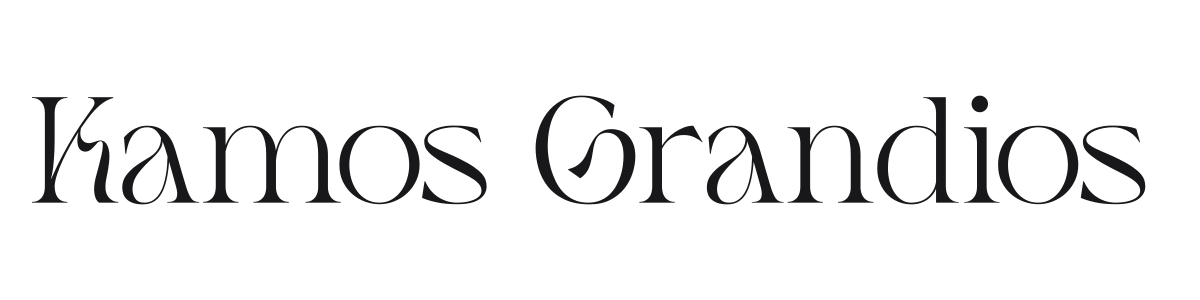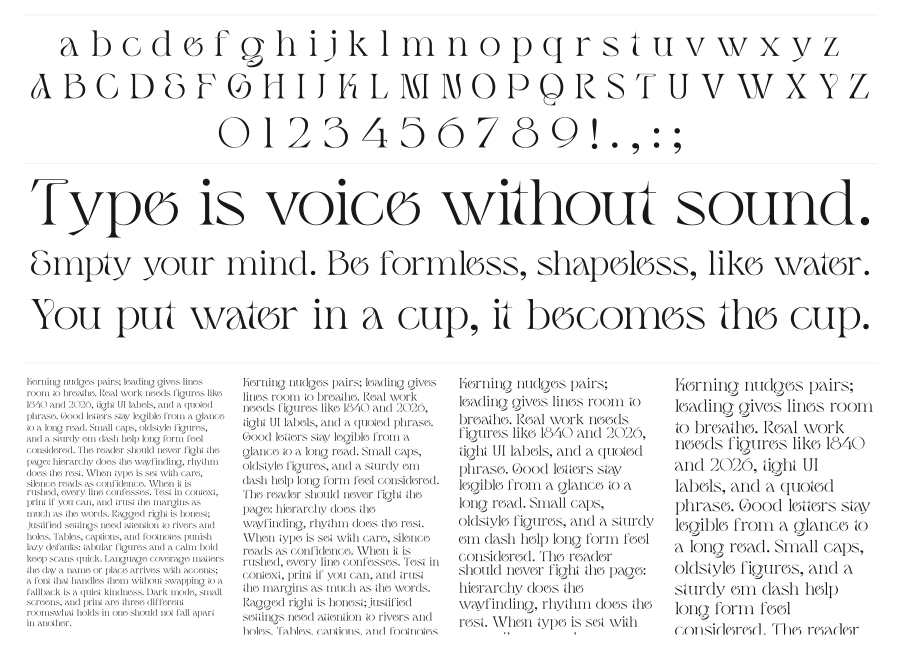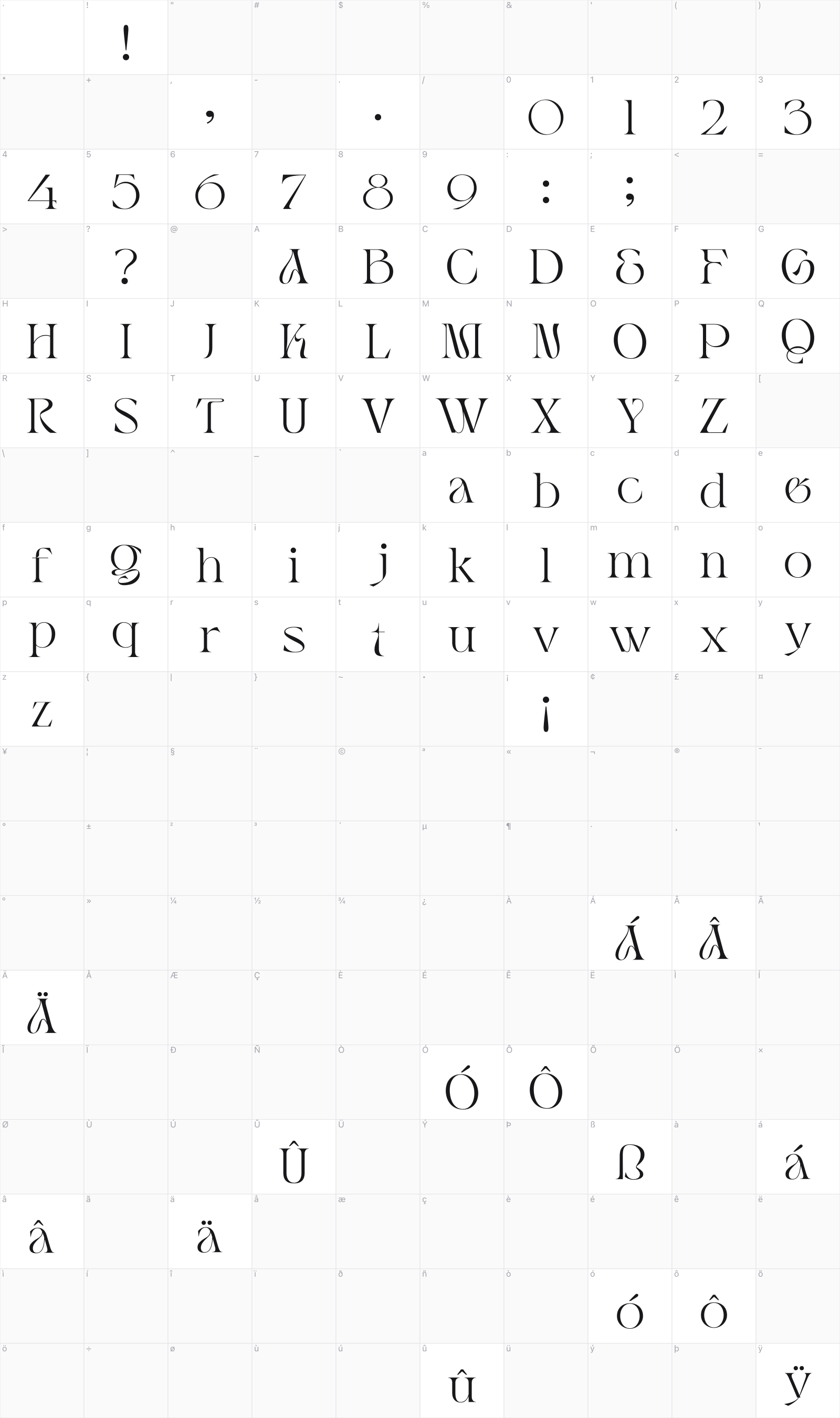
Kamos Grandios
Kamos Grandios is a high-contrast modern serif with extreme hairline-to-stem transitions drawn in the Didone tradition. Subtle calligraphic flourishes on certain characters keep it from feeling stiff, adding just enough warmth to balance the severity. It reads confidently at large sizes for editorial headers, luxury branding, and fashion-forward identity work.